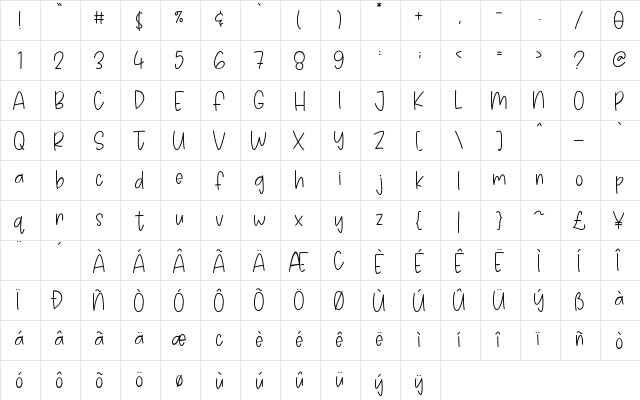
Avoids Dislikes Regular
| Foundry | Muammar Khalid |
| Designer | Muammar Khalid |
Design Context for Avoids Dislikes Typeface
Avoids Dislikes is a composed and adaptable typeface that performs quietly and consistently across a wide range of design contexts.